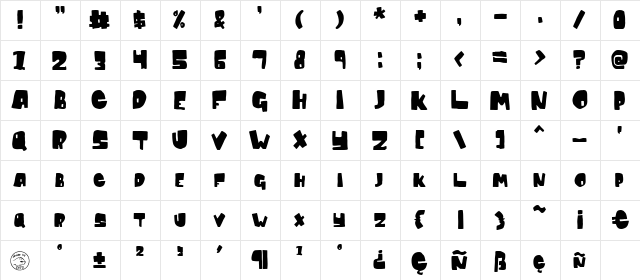
Conventional Wisdom Regular
| Foundry | [ Divide By Zero ] |
| Designer | Tom Murphy 7 |
Design Context for Conventional Wisdom Typeface
Conventional Wisdom is a composed and adaptable typeface that performs quietly and consistently across a wide range of design contexts.